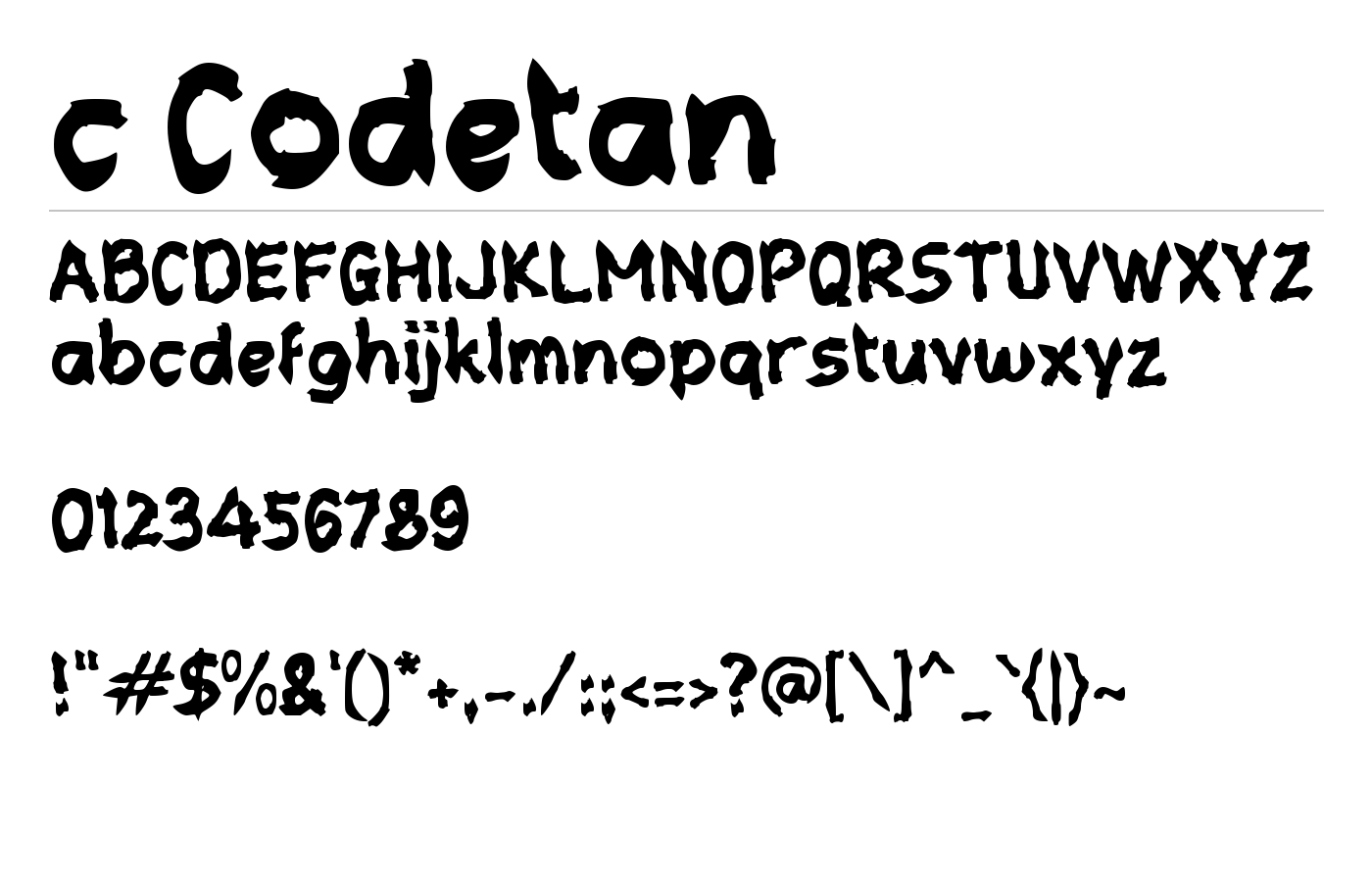
c Codetan is a bold, playful sans-serif font with a hand-drawn, slightly rough texture that gives it a casual and informal feel. Its uneven strokes and quirky letterforms create a lively personality, making it ideal for projects that want to convey creativity and fun. This font works well for eye-catching headlines, posters, or branding that seeks a unique, energetic vibe.
c Codetan Font